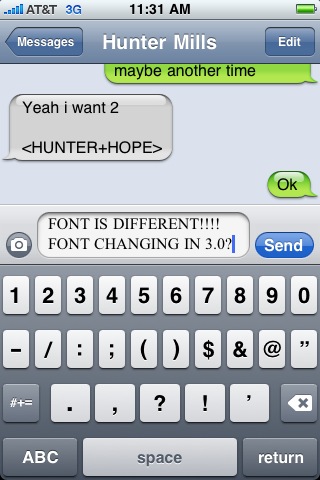
Was typing in Messages and font changed! Not sure how it happened but it changed back to the normal font. So does this mean font changing in 3.0?
Interesting. But no - there's no chance Apple would change their font to Times New Roman (or whatever that is, doesn't look like garamond). Must just be a bug or something. Funny you bring this up, I was just looking at this article the other day - http://en.wikipedia.org/wiki/Typography_of_Apple_Inc.
N nutman macrumors regular Mar 20, 2009 #6 it looks like garamond. oh garamond, how lovely a font you are. hahaha